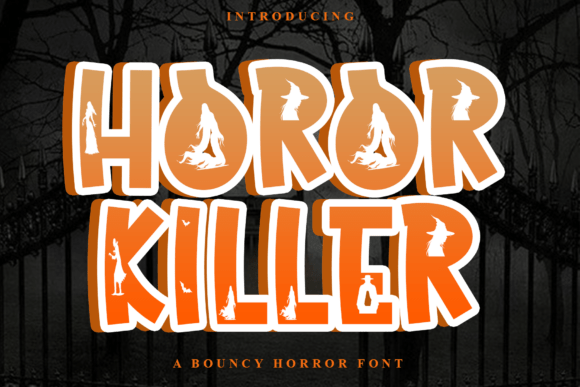
Unleashing Creativity with Horor Killer Font: A Unique Display Font
In the world of typography, fonts play a crucial role in conveying messages, expressing emotions, and creating a lasting impression. Among the numerous fonts available, Horor Killer stands out as a distinctive and eye-catching display font. Designed to inspire creativity, Horor Killer is an incredibly unique font that has the potential to elevate your designs to new heights. In this article, we’ll delve into the features, benefits, and applications of Horor Killer, exploring how it can become your go-to font for various creative projects.
What Makes Horor Killer Font So Special?
Horor Killer is an expertly crafted display font that boasts a one-of-a-kind design. Its unique characteristics make it an ideal choice for designers, artists, and creatives looking to add a touch of personality to their work. Here are some key features that set Horor Killer apart:
- Unique Letterforms: Horor Killer’s letterforms are carefully designed to be instantly recognizable. Each character has a distinct personality, making the font perfect for headlines, titles, and emphasis text.
- Highly Legible: Despite its unique design, Horor Killer remains highly legible, even at smaller sizes. This makes it suitable for a wide range of applications, from posters and flyers to digital screens and websites.
- Versatile: Horor Killer is a versatile font that can be used in various contexts, from horror-themed designs to more playful and creative projects.
- Easy to Use: Horor Killer is a straightforward font to use, with a simple and intuitive design that makes it easy to pair with other fonts.
The Benefits of Using Horor Killer Font in Your Designs
Horor Killer’s distinctive design offers numerous benefits for creatives. Here are some of the advantages of incorporating Horor Killer into your designs:
- Adds Personality: Horor Killer’s unique design injects personality into your work, setting it apart from more generic fonts.
- Grabs Attention: The font’s bold and eye-catching design makes it perfect for grabbing attention and drawing the viewer’s eye.
- Enhances Creativity: Horor Killer’s creative and playful design inspires imagination, making it an excellent choice for projects that require a touch of whimsy.
- Elevates Your Brand: By using Horor Killer, you can create a distinctive brand identity that sets you apart from others in your industry.
Exploring the Applications of Horor Killer Font
Horor Killer’s versatility makes it suitable for a wide range of applications. Here are some ideas to get you started:
- Posters and Flyers: Use Horor Killer to create eye-catching posters and flyers that grab attention and convey your message.
- Digital Screens: Horor Killer’s legibility and unique design make it perfect for digital screens, including video games, apps, and websites.
- Social Media: Add a touch of personality to your social media posts and stories with Horor Killer.
- Logos and Branding: Use Horor Killer to create a distinctive logo or brand identity that sets you apart.
- Art and Illustration: Horor Killer’s creative design makes it an excellent choice for art and illustration projects, including comics, graphic novels, and children’s books.
Tips and Tricks for Using Horor Killer Font
To get the most out of Horor Killer, here are some tips and tricks to keep in mind:
- Pair with Other Fonts: Experiment with pairing Horor Killer with other fonts to create a unique and harmonious design.
- Adjust Font Size: Play with font sizes to create visual interest and emphasis.
- Experiment with Colors: Try out different colors to add an extra layer of personality to your design.
- Keep it Simple: Don’t overcomplicate your design – Horor Killer’s unique design can shine on its own.
Horor Killer is an incredibly unique display font that has the potential to elevate your designs to new heights. With its distinctive letterforms, high legibility, and versatility, Horor Killer is perfect for creatives looking to add a touch of personality to their work. Whether you’re designing posters, digital screens, or logos, Horor Killer is an excellent choice. So why not give Horor Killer a try and unleash your creativity?